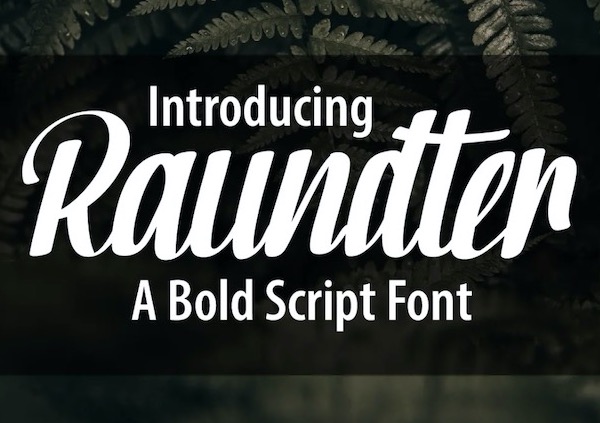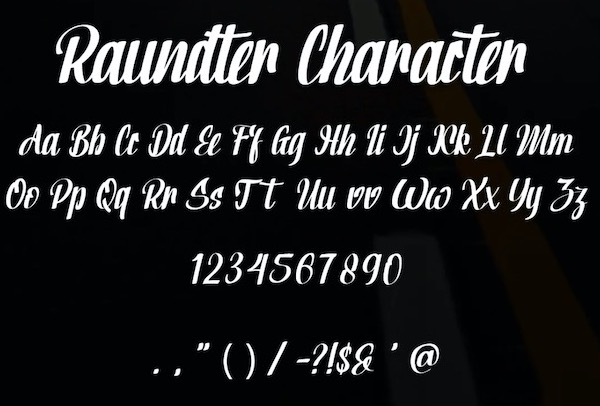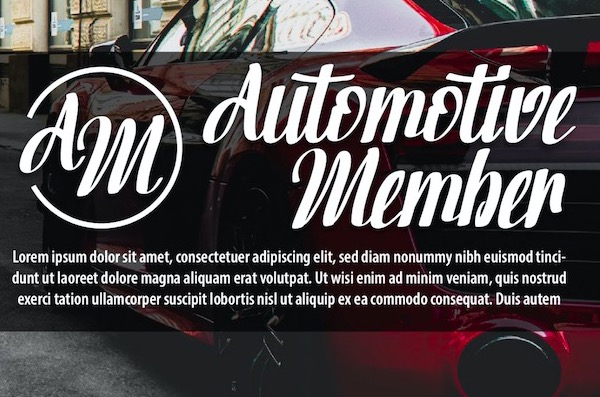
Raundter is a classy and familiar bold script font that was created and shared by IHDSTD. It’s suitable for your Posters, Logo, Poster, Sticker, Jerseys, Invitation Card, Brochure, etc.
Raundter Script Font